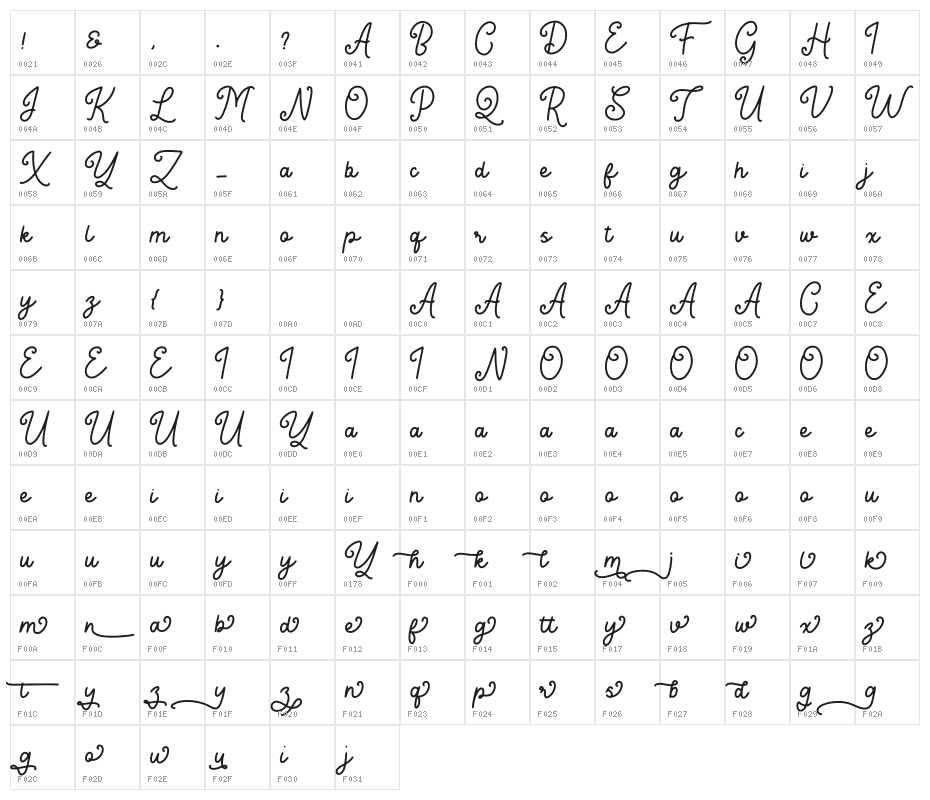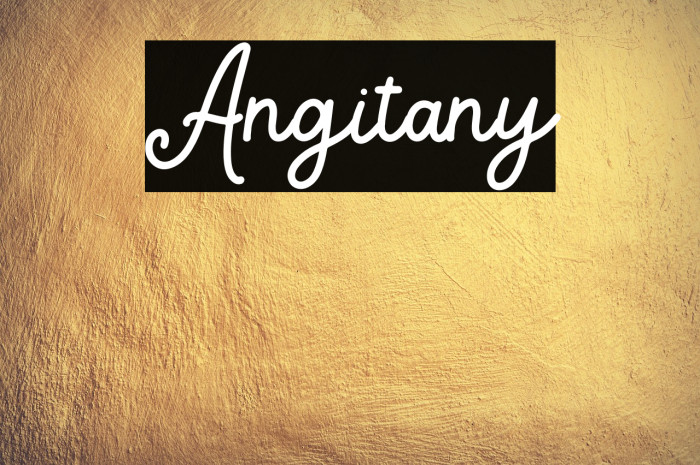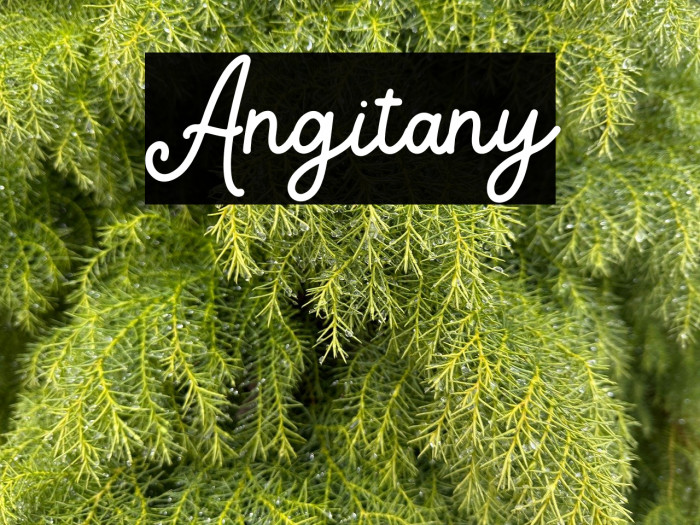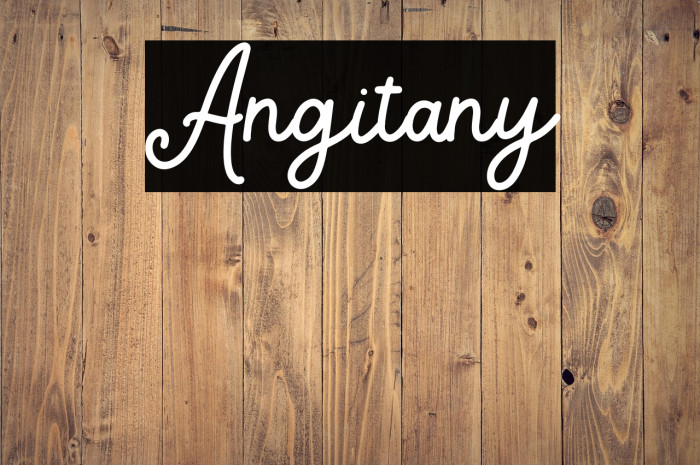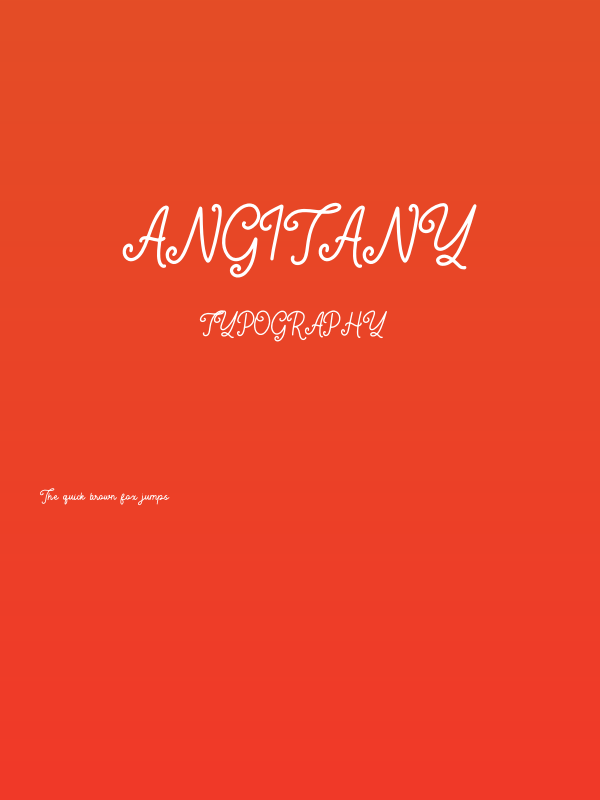
Angitany Font
Angitany Description
This font features a playful and elegant script style, characterized by its flowing, cursive letterforms. The uppercase letters exhibit a graceful loop and swirl, adding a touch of sophistication, while the lowercase letters maintain a consistent, smooth flow. The strokes are moderately thick, providing a balanced contrast that enhances readability without sacrificing style. The font's overall appearance is both charming and versatile, making it suitable for a variety of creative applications. Its decorative nature is complemented by a sense of modernity, making it a great choice for projects that require a personal, handwritten touch.
| Use Case | Logos, Headlines, Invitations |
| Proposed Projects | Ideal for wedding invitations, greeting cards, branding, and social media graphics. |